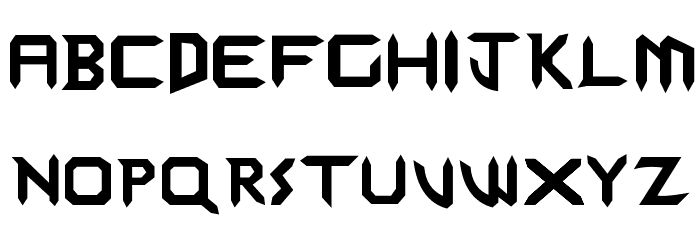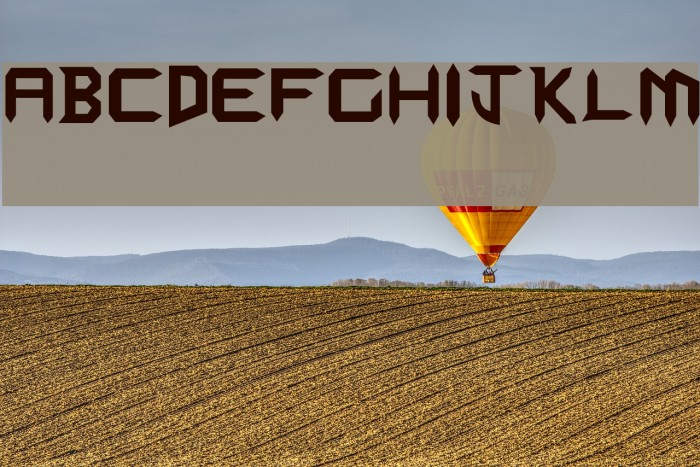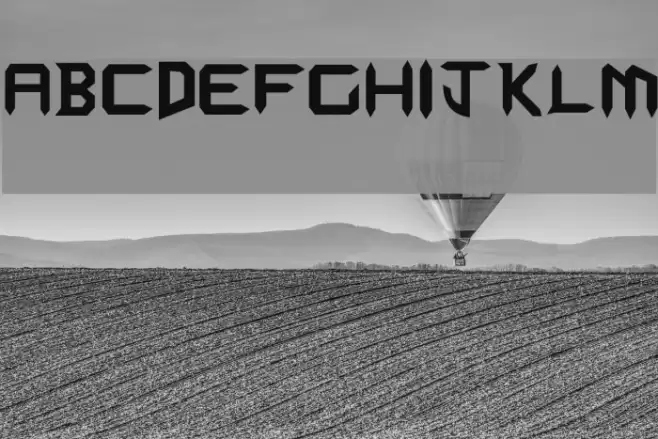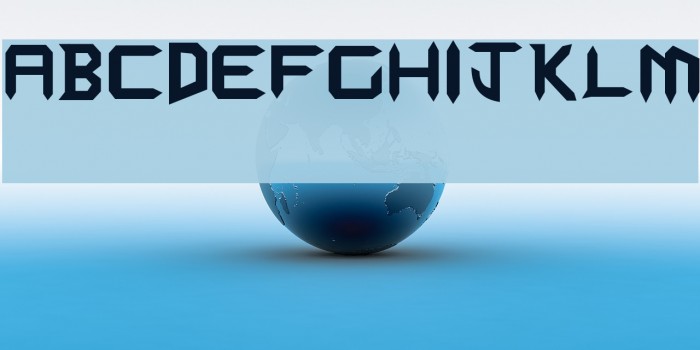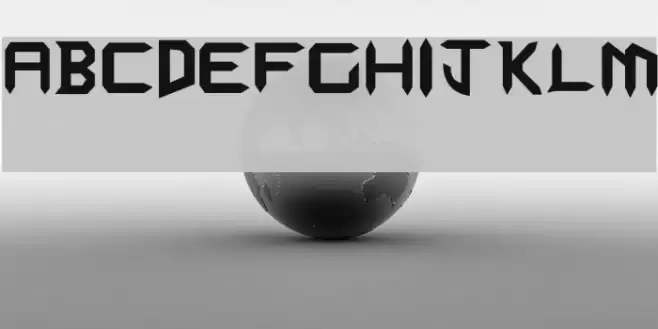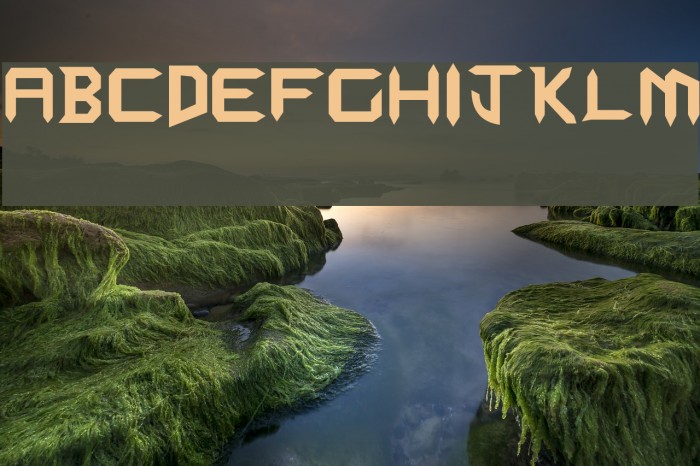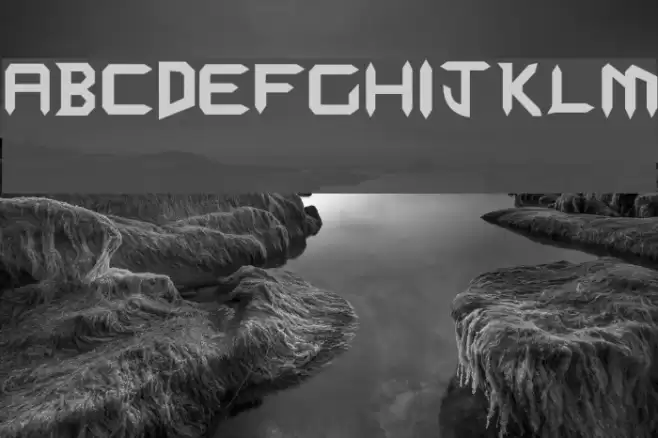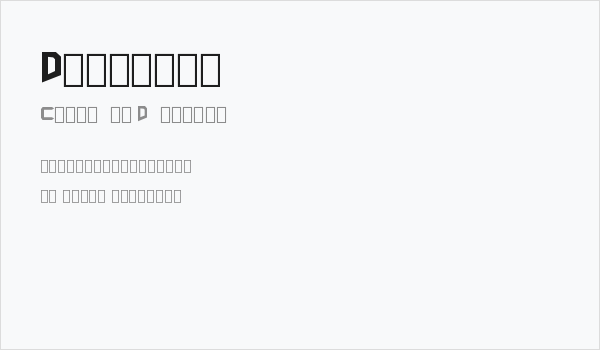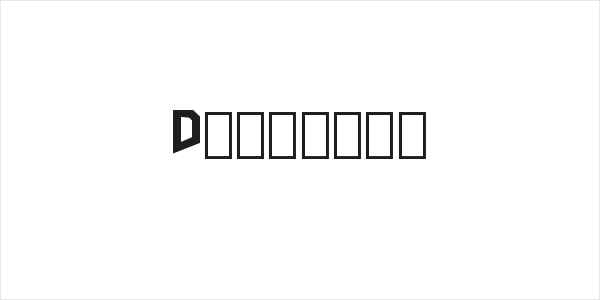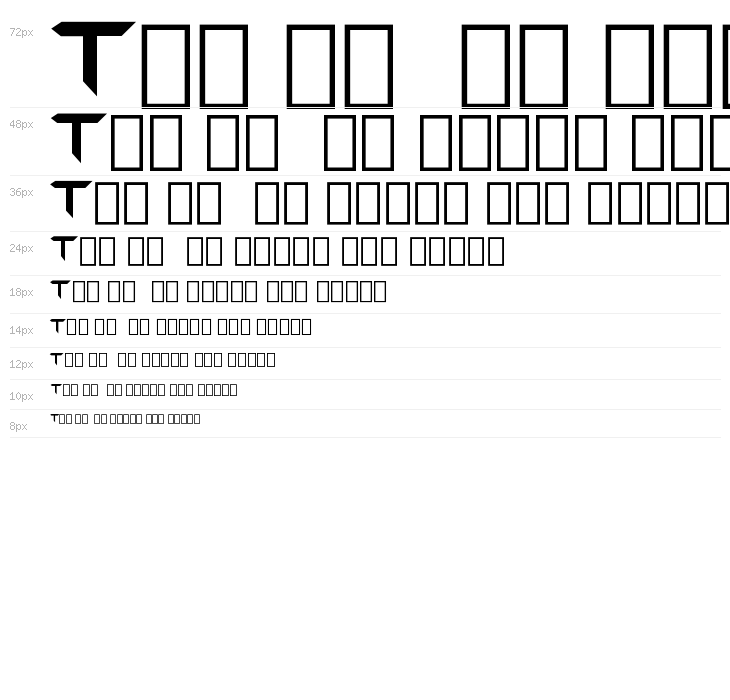
Darkstar Font
Darkstar Description
This font features a bold, angular design with sharp edges and geometric shapes, giving it a futuristic and edgy appearance. The uppercase letters are particularly striking, with a consistent height and width that create a uniform look. The lowercase letters maintain the same angular style, ensuring cohesion throughout the typeface. The numbers and special characters are designed to match the boldness and geometric nature of the alphabet, making them stand out. This font's unique style makes it suitable for projects that require a modern and impactful visual presence.
| Proposed Projects | Ideal for sci-fi themed designs, video game graphics, movie posters, and branding for tech companies. |